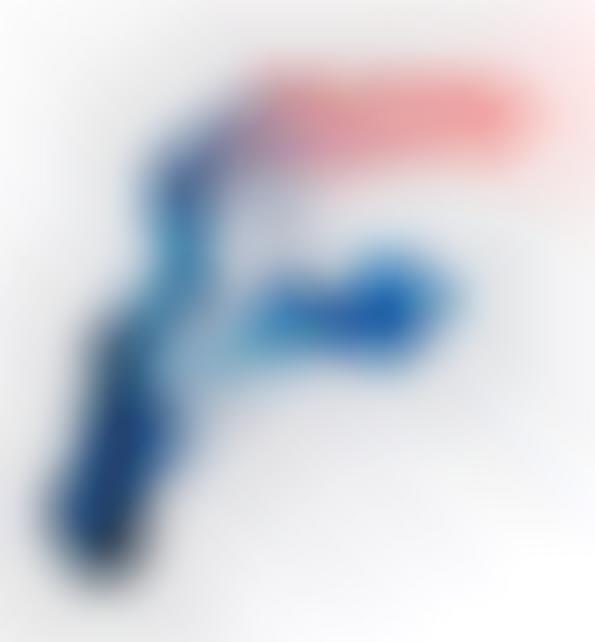
Rob Gonzalez and Jonathan Quainton of London-based studio Sawdust have crafted a new 3D typeface called Flow. Known for their expertise in custom typography and image-making, the pair uses acrylic paint and Scotch tape to create the effect of the typeface. The paint is smeared onto the tape and the artist uses the painted tape to bend and twist it into letters. Afterwards, the tape is Photoshopped out of the picture, resulting in an iridescent, three-dimensional set of floating letters.
On the reason why they created the typeface, Gonzalez says, "Ideas can often be rejected by the commercial world so it’s a shame if they never see the light of day. We’re not against creating studio projects that are based on our own personal explorations, in fact we champion that philosophy."
Adhesive-Inspired Typography
Flow is a 3D Typeface that Uses Acrylic Paint and Adhesive